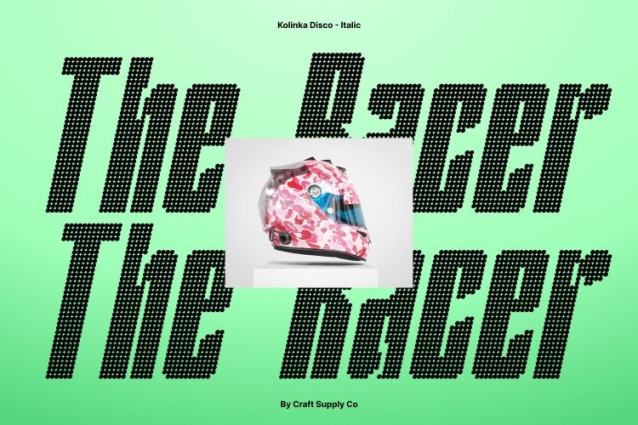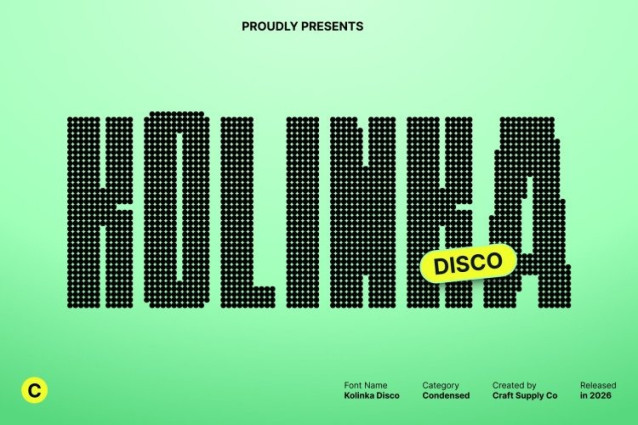
Kolinka Disco Font
Kolinka Disco Font This is a bold inktrap sans serif font designed to make a powerful visual statement. Its strong letterforms are enhanced with distinctive inktrap detailing, adding depth, texture, and personality. Combined with a disco-inspired rhythm, the font feels lively, expressive, and ready to shine under bright lights.
Condensed Structure for Maximum Impact
Featuring tight spacing and a condensed silhouette, delivers high-impact typography while maximizing space efficiency. This compact design keeps layouts clean and striking, making the font ideal for headlines, banners, logos, and high-energy visuals where every character needs to stand out.
Versatile and Visually Striking
From posters and packaging to branding and promotional materials, adapts effortlessly to a wide range of design applications. Its bold presence and playful inktrap details bring a festive edge that elevates both modern and expressive projects.
Bold Elegance with Festive Attitude
This font blends confident structure with charming details, creating a look that feels stylish yet energetic. It adds character, motion, and a touch of celebration to your typography perfect for designs that want to feel strong, modern, and full of disco-inspired life.